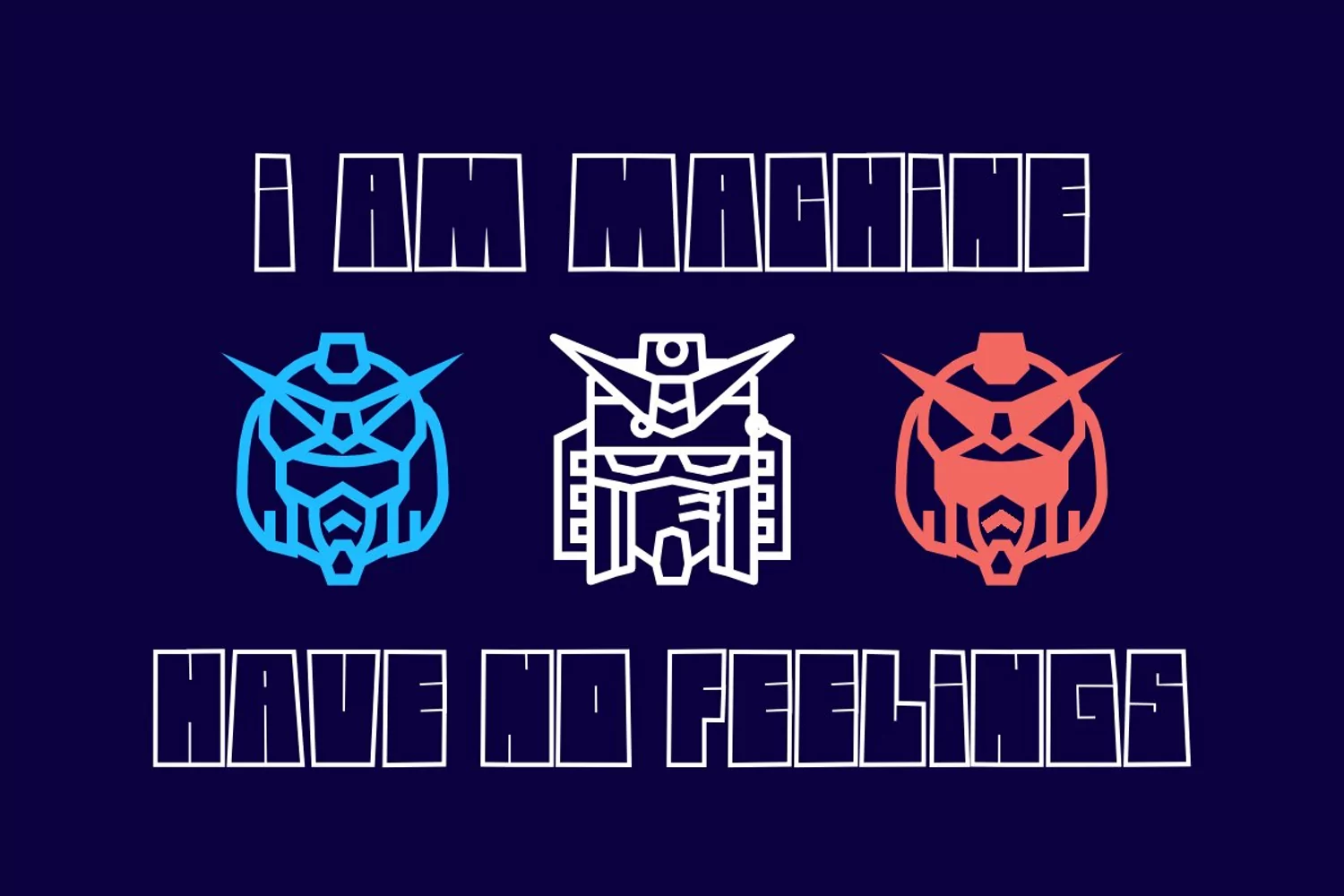
Introducing " RUBIXS "
RUBIXS Is a Display Font with 3 Layered font ( Regular,Outline and Shadow)
You Can Mix And Match for Your Awesome Project
This fonts is ideal for crafting, branding and decorate your any project. This fonts are perfect for wedding invitation or your blog. Also with their help, you can create a logo or beautiful frame for your home. Or just use for your business, book covers, stationery, marketing, magazines and more.